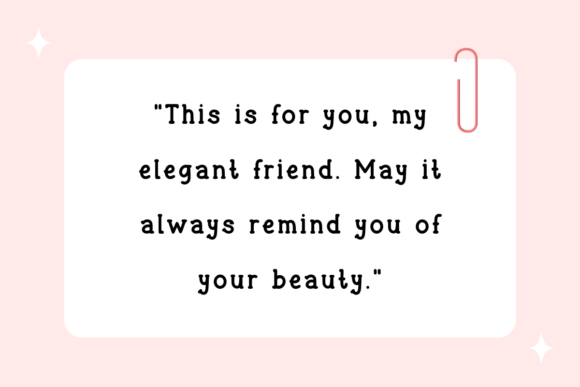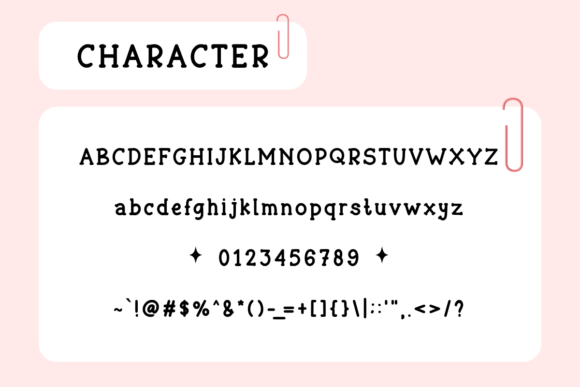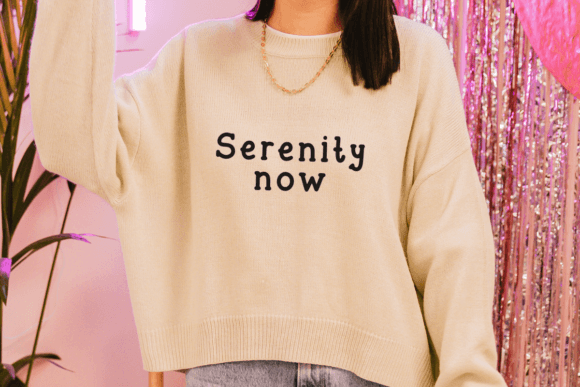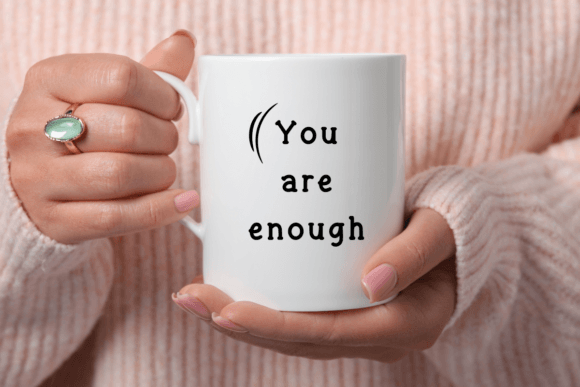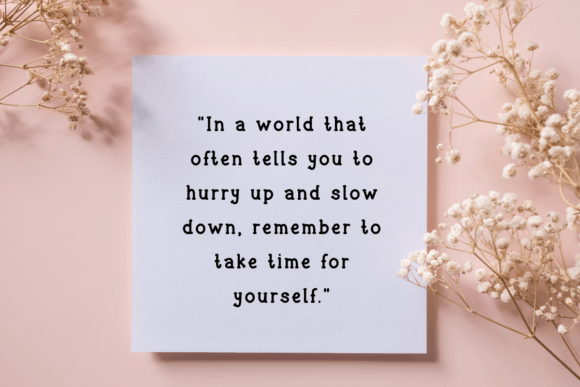
The Designer’s Delight: Cherish Elegant Font
Have you ever been in the middle of a design project, and suddenly, you’re stuck on finding the perfect font? I recall a recent experience where I was working on a logo design for a boutique client, and I just couldn’t seem to find a font that exuded the right amount of elegance and approachability. That’s when I stumbled upon Cherish Elegant, a delightful slab serif font that instantly became my go-to. In this article, I’ll share my love for this font, its features, and how to make the most of it in your designs.
An Honest Review of Cherish Elegant
- ✨ **Bold yet Soft**: Cherish Elegant features bold strokes with soft, rounded edges, giving it a classy yet approachable style that’s perfect for a wide range of design projects.
- ✅ **Versatile**: This font is ideal for logos, product packaging, invitations, and more, making it a great addition to any designer’s toolkit.
- 💫 **Refined Charm**: Cherish Elegant adds a touch of sophistication to any project, making it perfect for designers looking to elevate their designs.
While Cherish Elegant is an excellent font, there are a few minor quirks to be aware of:
- 🤔 **Limited Use in Body Text**: Due to its bold nature, Cherish Elegant might not be the best choice for body text, especially in longer paragraphs. It’s better suited for headings, titles, or short sentences.
- ⚠️ **Glyph Limitations**: As with any font, there might be limitations in terms of glyphs or special characters. However, Cherish Elegant provides a wide range of OpenType features that can enhance your design.
- Experiment with **OpenType features** like ligatures, stylistic alternates, and glyphs to add more personality to your text.
- Choose Cherish Elegant and explore **OpenType features** like swashes, stylistic sets, and glyphs to enhance your design.
The Story Behind Cherish Elegant
Cherish Elegant was designed with the intention of creating a font that exudes warmth and sophistication. Its creator aimed to craft a font that would be both elegant and approachable, making it perfect for a wide range of design projects. The result is a font that adds a refined charm to any design.
| Font Name | Cherish Elegant Font |
| Author | CraftedType Studio |
Q: What type of projects is Cherish Elegant best suited for?
A: Cherish Elegant is perfect for logos, product packaging, invitations, and any design project that requires a touch of elegance and approachability.
Q: Can I use Cherish Elegant for body text?
A: While possible, Cherish Elegant is better suited for headings, titles, or short sentences due to its bold nature.
Q: Does Cherish Elegant support OpenType features?
A: Yes, Cherish Elegant provides a range of OpenType features, including ligatures, stylistic alternates, and glyphs, which can enhance your design.
Q: Is Cherish Elegant suitable for digital use?
A: Absolutely! Cherish Elegant’s clear and elegant design makes it suitable for both print and digital applications.